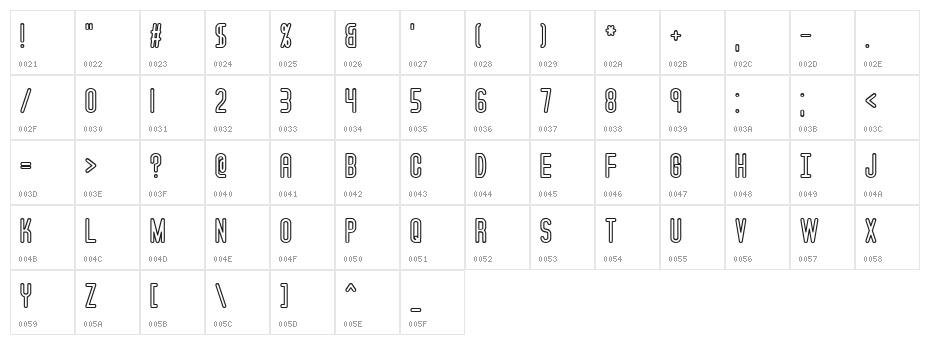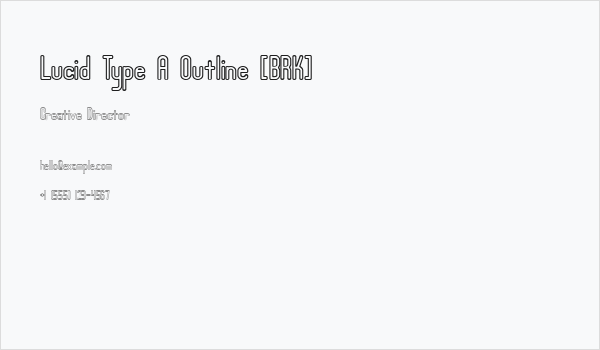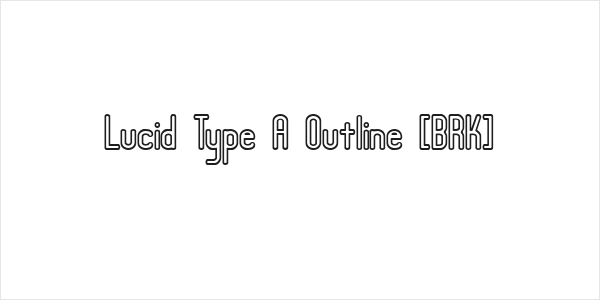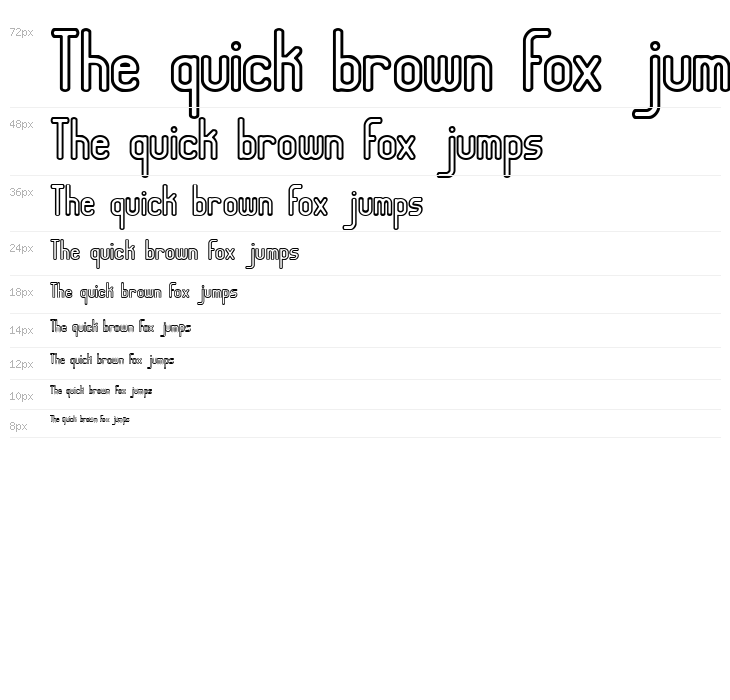
Lucid Type A Outline [BRK] Font
Lucid Type A Outline [BRK] Description
This font features a distinctive outline style, giving it a modern and playful appearance. The characters are bold and well-defined, with a consistent stroke width that creates a uniform look across all letters and numbers. The uppercase and lowercase letters maintain a geometric structure, while the numerals are clear and easy to read. Special characters are included, matching the overall aesthetic. This font is ideal for projects that require a contemporary and eye-catching design, such as posters, headlines, or branding materials.
| Proposed Projects | Ideal for posters, headlines, branding, and any design needing a modern, eye-catching font. |